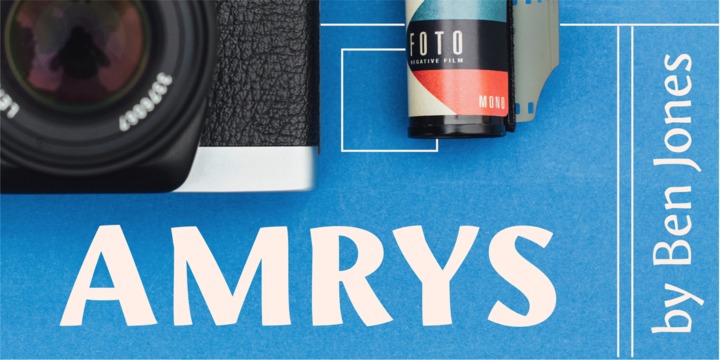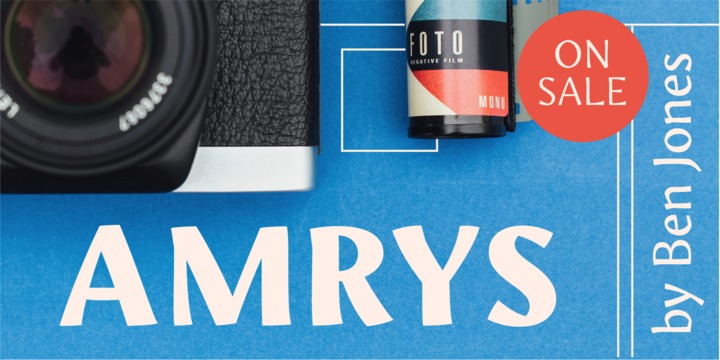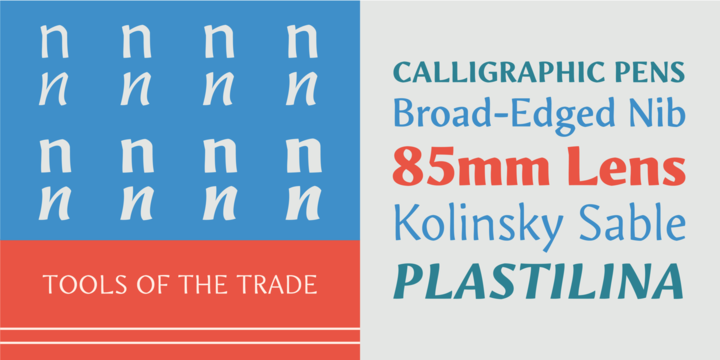
Amrys Font Family
About this font family
There’s an appealing quirkiness about Amrys, which offers a confidently unusual alternative to more conventional designs. Its charm lies in its tapering tips, flexing stems, and unexpected notches, which combine to suggest something of the chiseller’s tool at work.
As a modulated serif, its letter shapes live between serif and sans serif, lending the design a sense of pleasing irregularity – something that’s really highlighted at larger sizes. However this is also a typeface that works for text, injecting rhythm and texture into reading